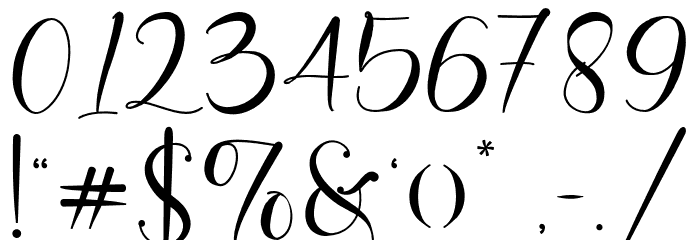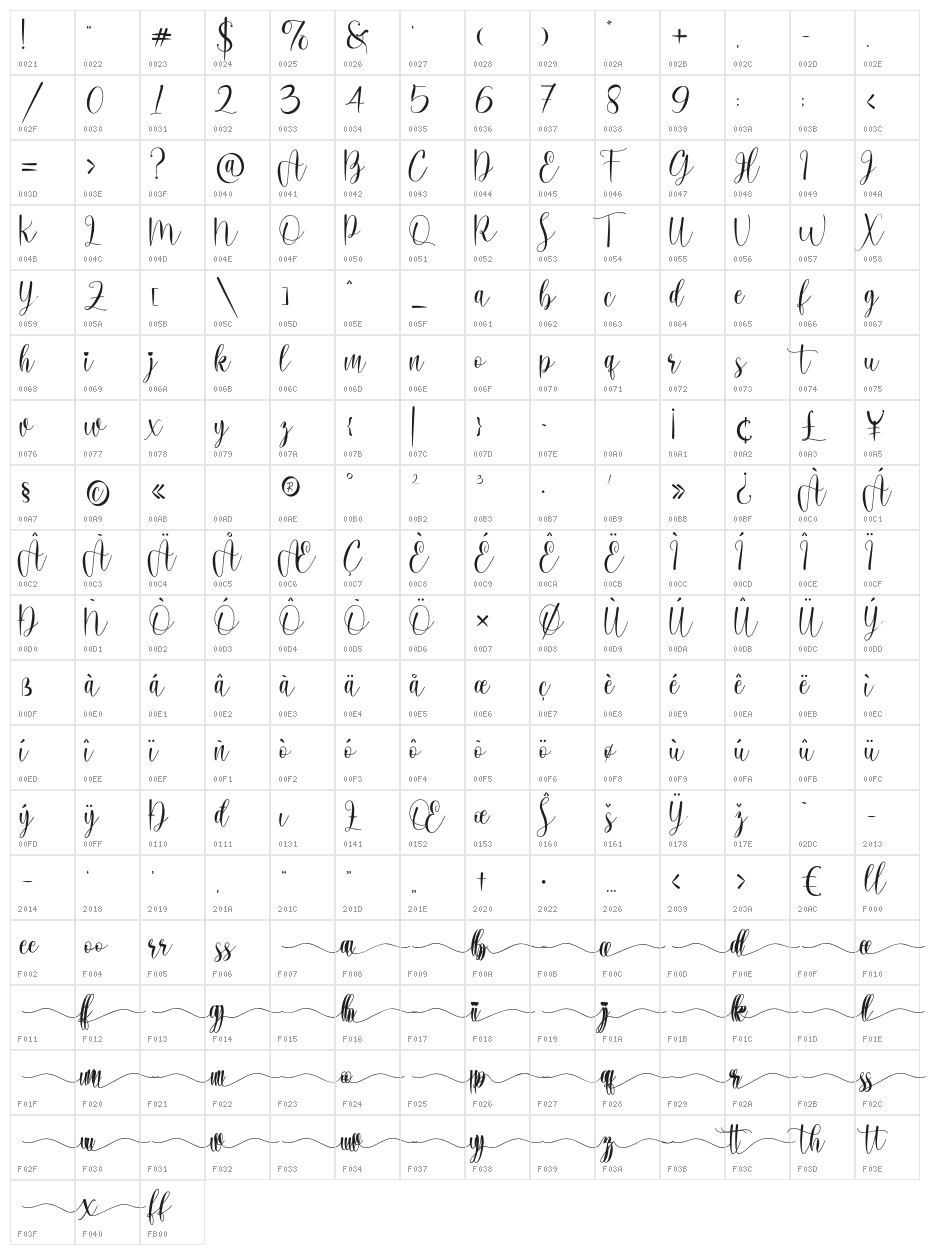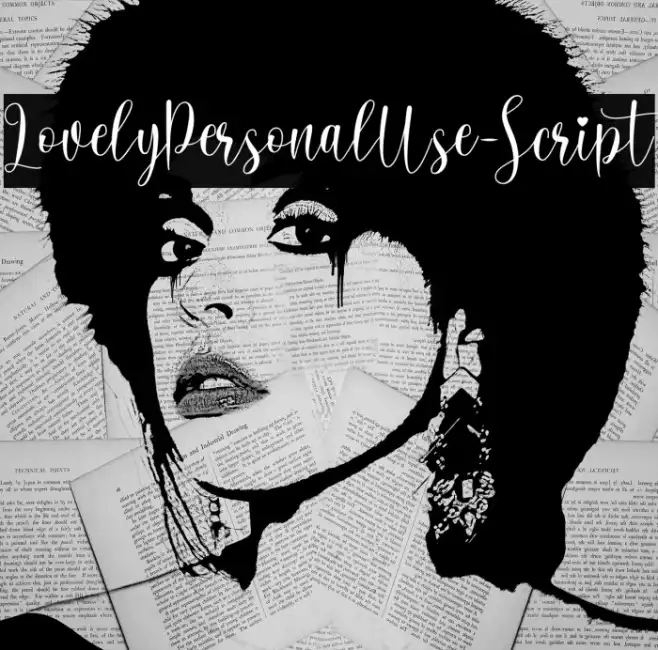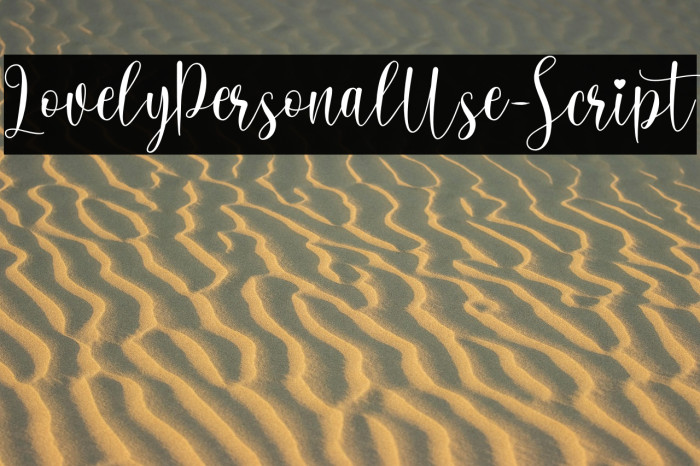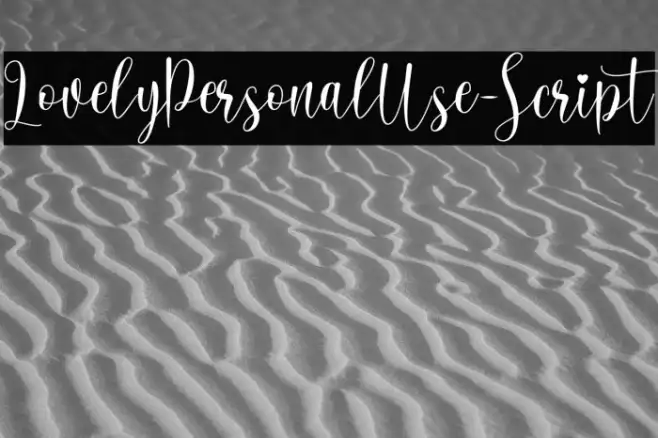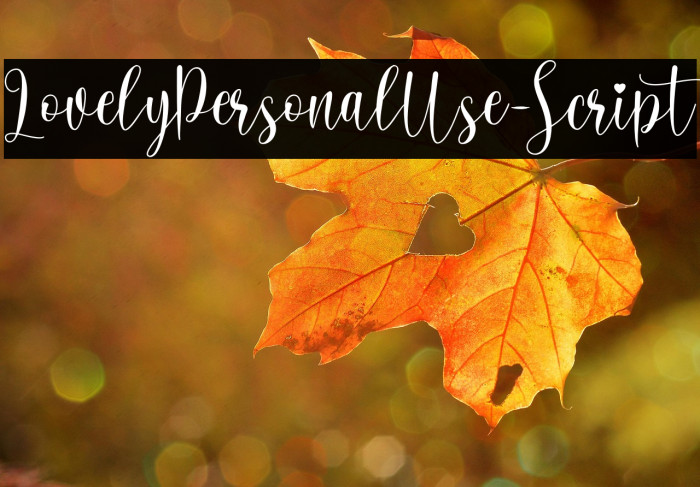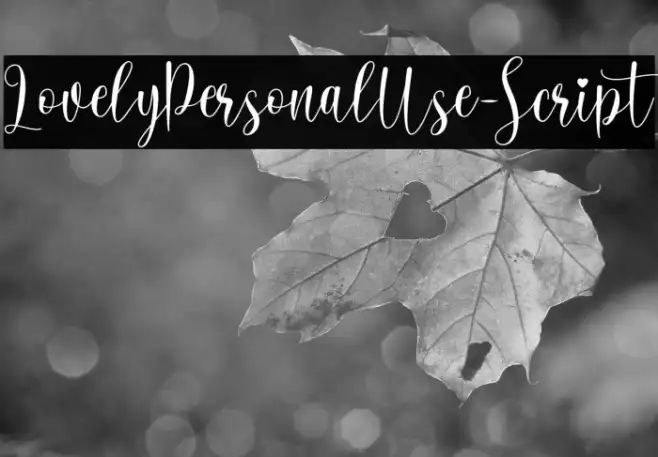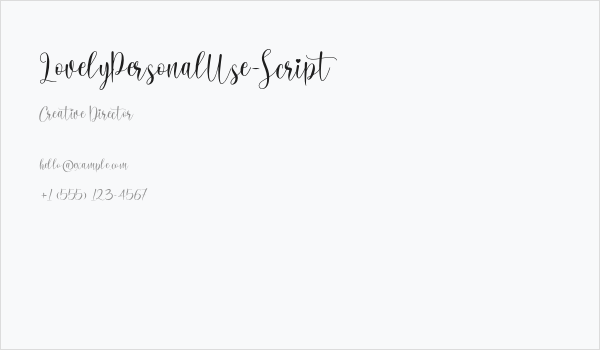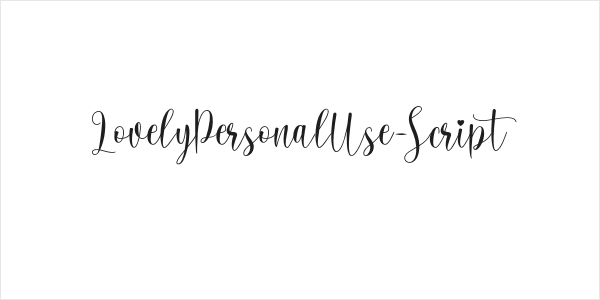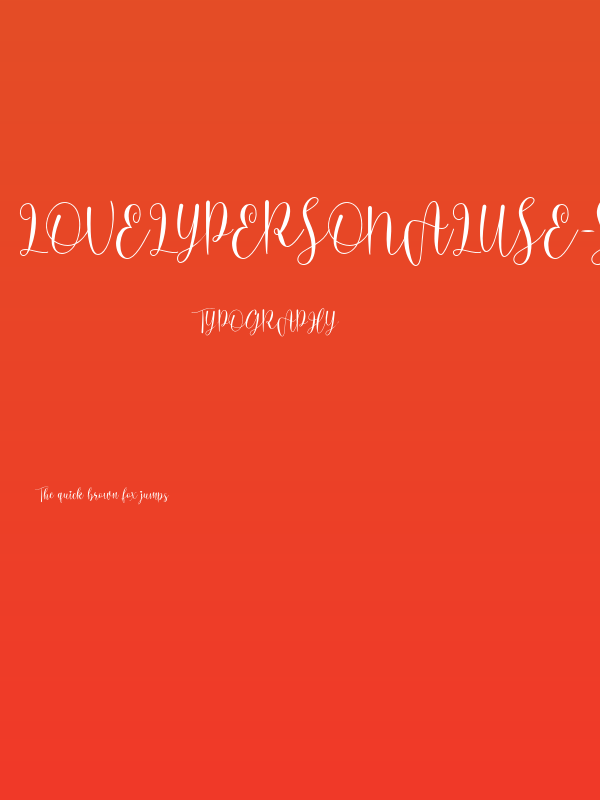
LovelyPersonalUse-Script Font
LovelyPersonalUse-Script Description
This font exudes a charming and elegant script style, characterized by its fluid, cursive strokes and graceful loops. The uppercase letters are tall and expressive, with sweeping curves that give a sense of movement and sophistication. The lowercase letters maintain a consistent flow, enhancing readability while retaining a decorative flair. Numbers and special characters are designed with the same attention to detail, ensuring a cohesive look throughout. The overall appearance is both stylish and approachable, making it suitable for a variety of creative applications.